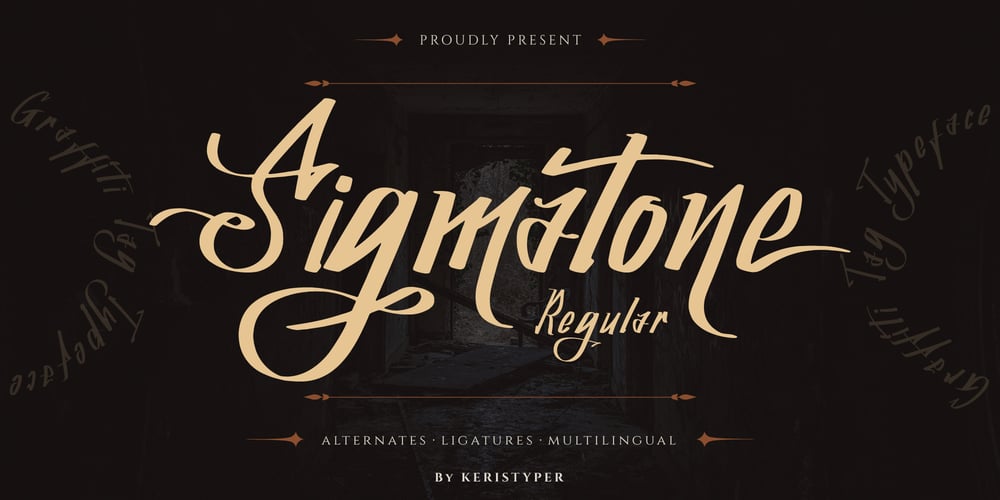
Sigmatone Font Family was designed by Tezar Tantular and published by Keristyper Studio. Sigmatone contains 1 styles and family package options. Introduce Sigmatone Inspired by old skool graffiti tagging, and street art, we created this Typeface, drawn in Procreate app, then vectorized and crafted carefully. This font is good for logo design, Social media, Movie Titles, Books Titles, short text even long text letters, and good for your secondary text font with sans or serif.Featured: Standard Uppercase & Lowercase Numeral & Punctuation Multilingual : ä ö ü Ä Ö Ü ß ¿ ¡ Alternate & Ligature PUA encoded We recommend programs that support the OpenType feature and the Glyphs panel such as Adobe applications or Corel Draw. so you can use all the variations of the glyphs. Hope you enjoy our fonts!